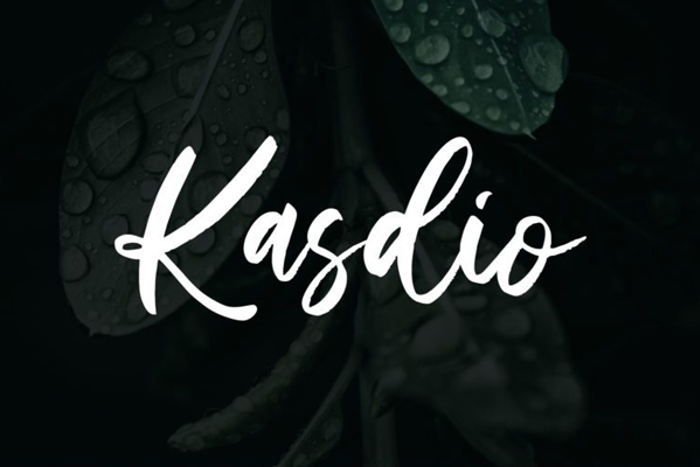
Kasdio Font
Product Description :
Kasdio is a casual brush font. Made for any professional project branding such as social media campaigns, ads, wedding invitations, logotypes, cards, and more. Every letter has a unique and beautiful touch.
Features include:
• Ligatures
• Multilingual Supports
• Numerals and Punctuations